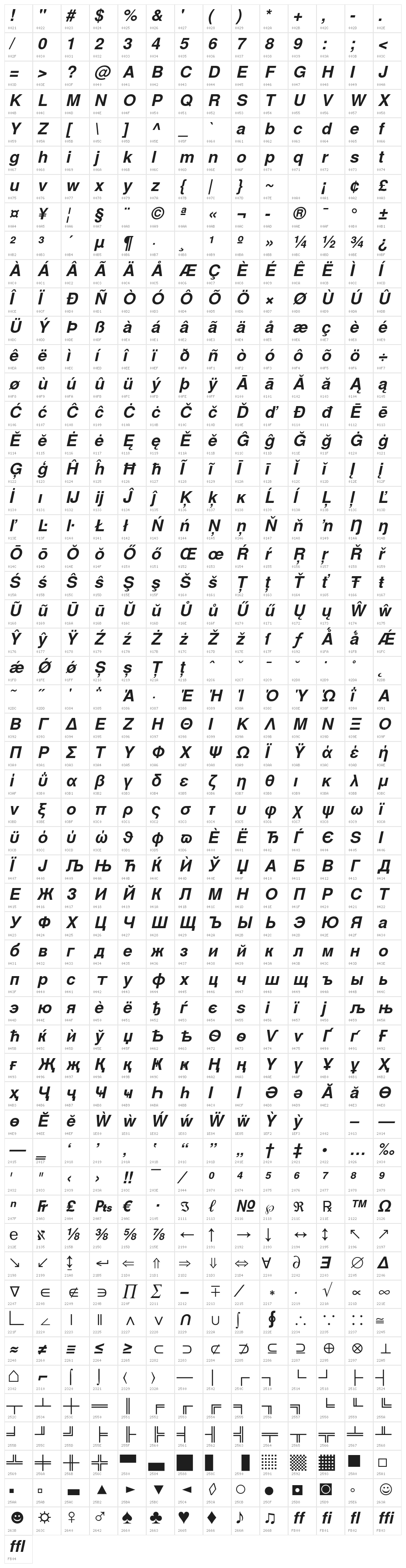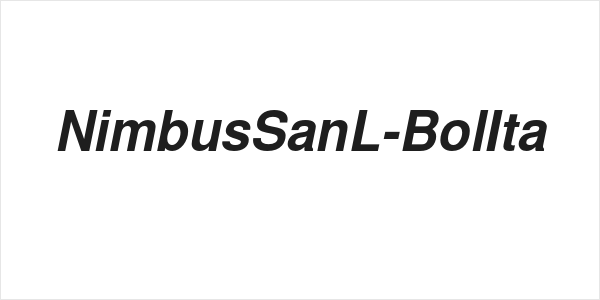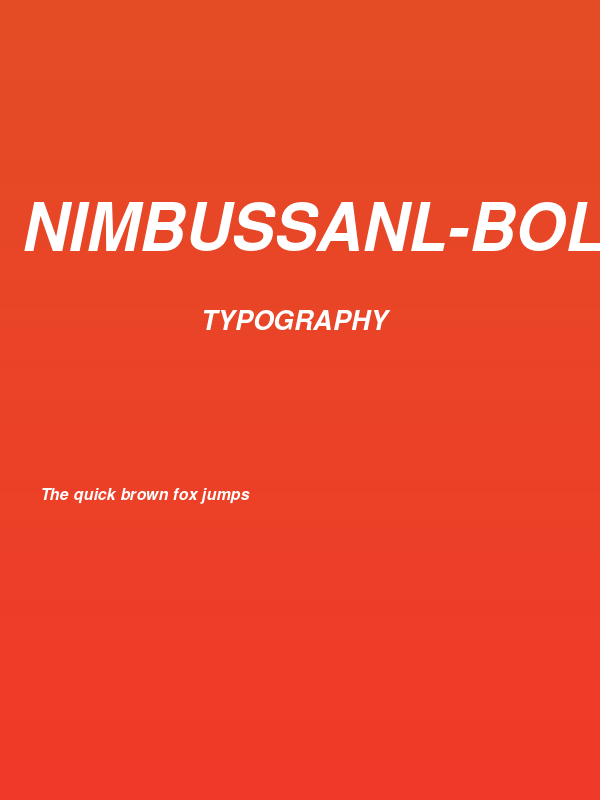
NimbusSanL-BolIta Font
NimbusSanL-BolIta Description
This font features a bold and italicized style, offering a dynamic and modern appearance. The characters are well-defined with a slight slant, enhancing readability while adding a touch of elegance. The uppercase letters are strong and commanding, while the lowercase letters maintain a consistent flow. Numerals are clear and distinct, making them suitable for various applications. The special characters are crafted with precision, ensuring they complement the overall design. This font is versatile, suitable for both digital and print media, and can effectively convey a sense of professionalism and creativity.
| Use Case | Headlines, Logos, Advertising |
| Proposed Projects | Ideal for branding, advertising, headlines, and digital content where a strong and modern impression is desired. |